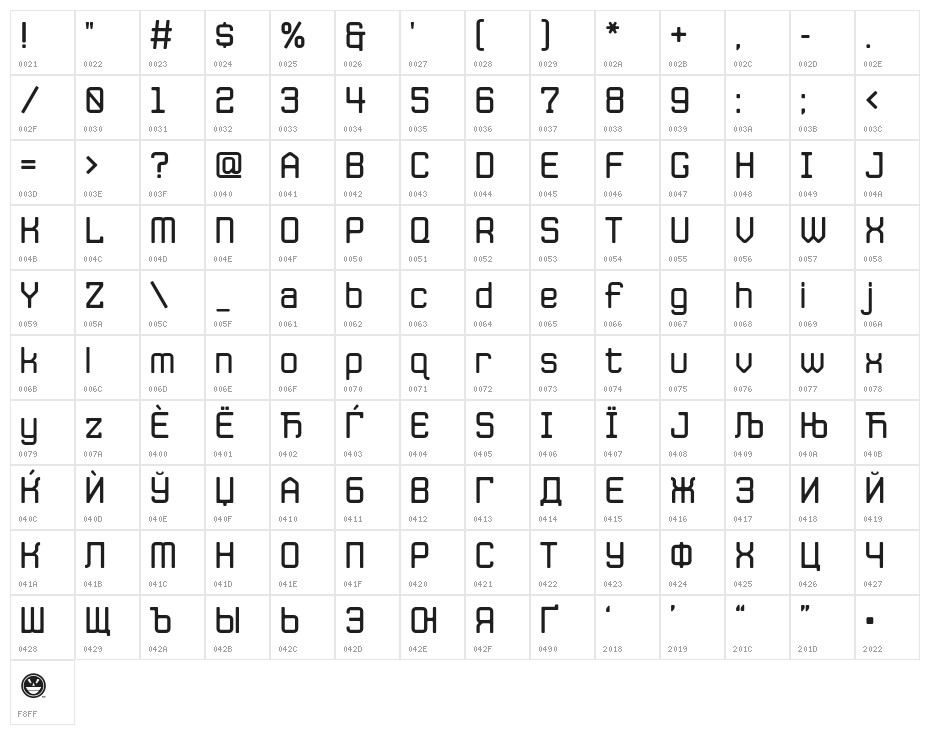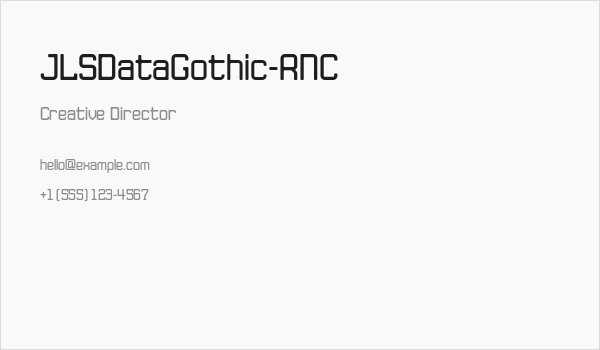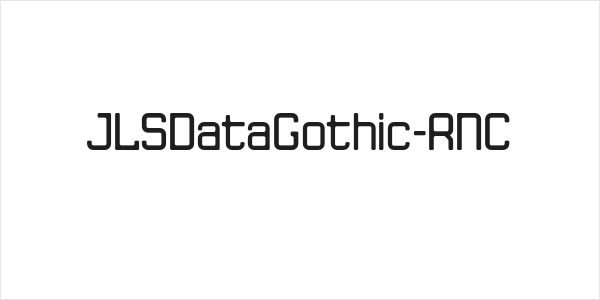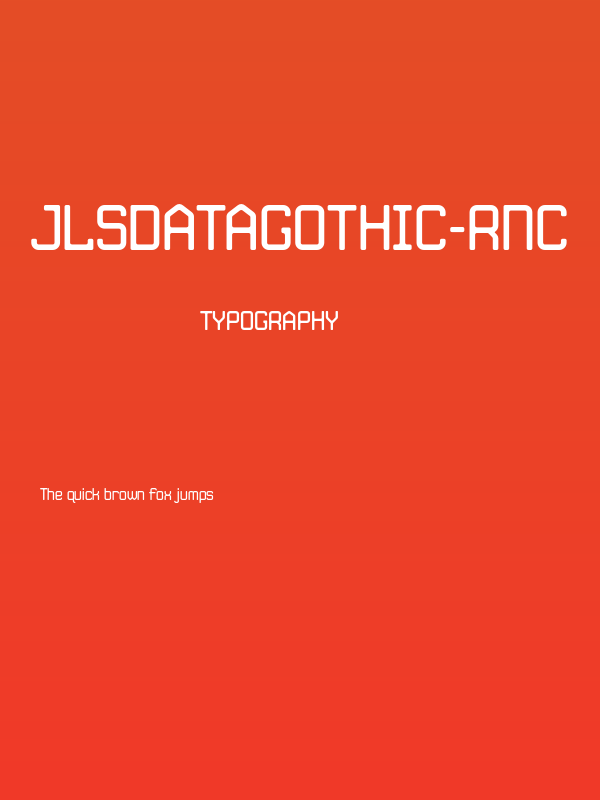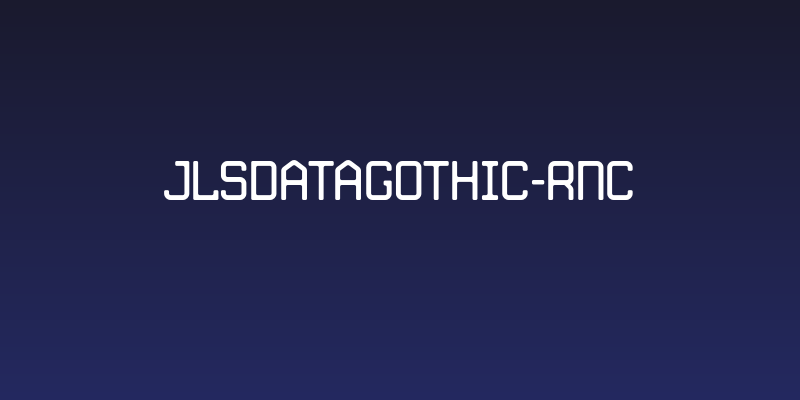
JLSDataGothic-RNC Font
JLSDataGothic-RNC Description
This font features a modern, geometric design with a clean and structured appearance. The characters are composed of rounded edges and consistent stroke widths, giving it a uniform and cohesive look. The uppercase and lowercase letters maintain a similar width, contributing to its balanced aesthetic. The numerals and special characters are designed to match the overall style, ensuring a seamless integration across different text elements. The font's simplicity and clarity make it highly legible, suitable for various digital and print applications.
| Use Case | Headlines, Body text, Logos |
| Proposed Projects | Ideal for tech branding, digital interfaces, signage, and modern editorial layouts. |